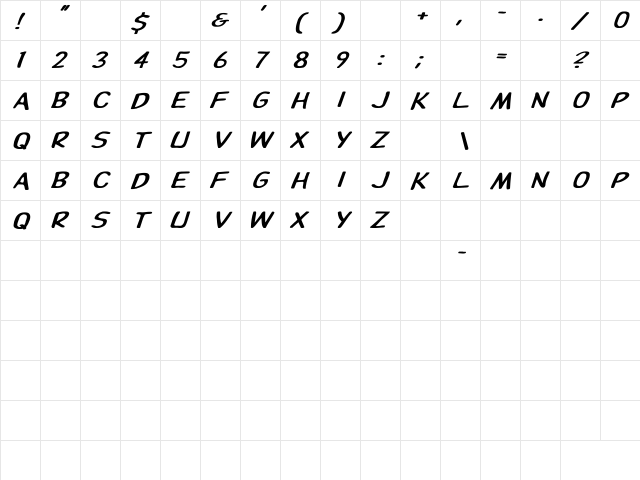
Dupuy Wd BI Bold Italic
Design Context for Dupuy Wd BI Typeface
Dupuy Wd BI is a composed and adaptable typeface that performs quietly and consistently across a wide range of design contexts. The dynamic lean of this cut emphasises speed and emphasis in any layout. The heavy weight commands attention and anchors typographic hierarchies.
Pro Tip: Try Dupuy Wd BI for annotation and caption copy alongside an upright companion — the contrast in angle creates a dynamic but ordered typographic system.